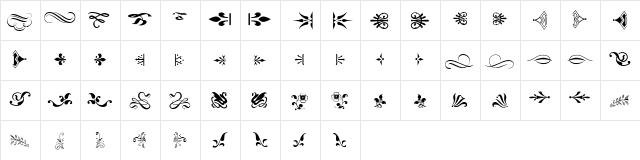
Solo Ornaments Regular
Design Context for Solo Ornaments Typeface
Solo Ornaments brings ornamental detail and strong personality to headlines and identities, where visual impact matters more than quiet functionality.